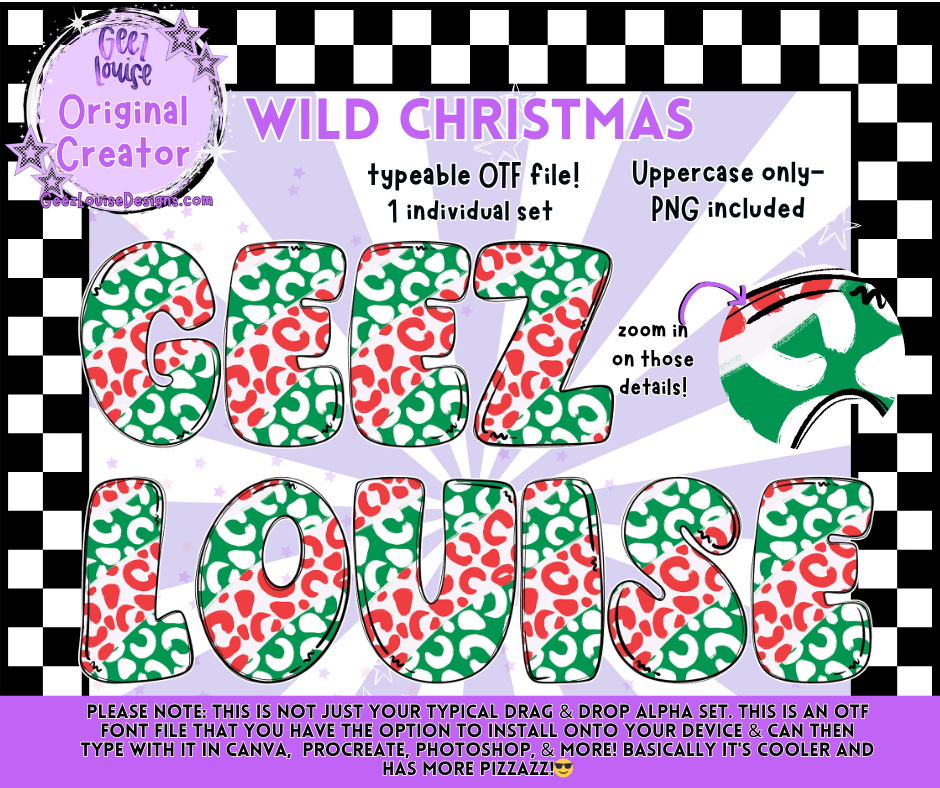
Wild Christmas OTF Alpha Set | Festive Digital Font & PNG Letters
Bring a little wild cheer to your holiday creations with the Wild Christmas OTF Alpha Set! 🎄✨ This digital font set features a bold red, green, and white animal-print style — perfect for festive projects that need a playful twist.
Add a dash of wild to your Christmas projects with this versatile and fun font set!